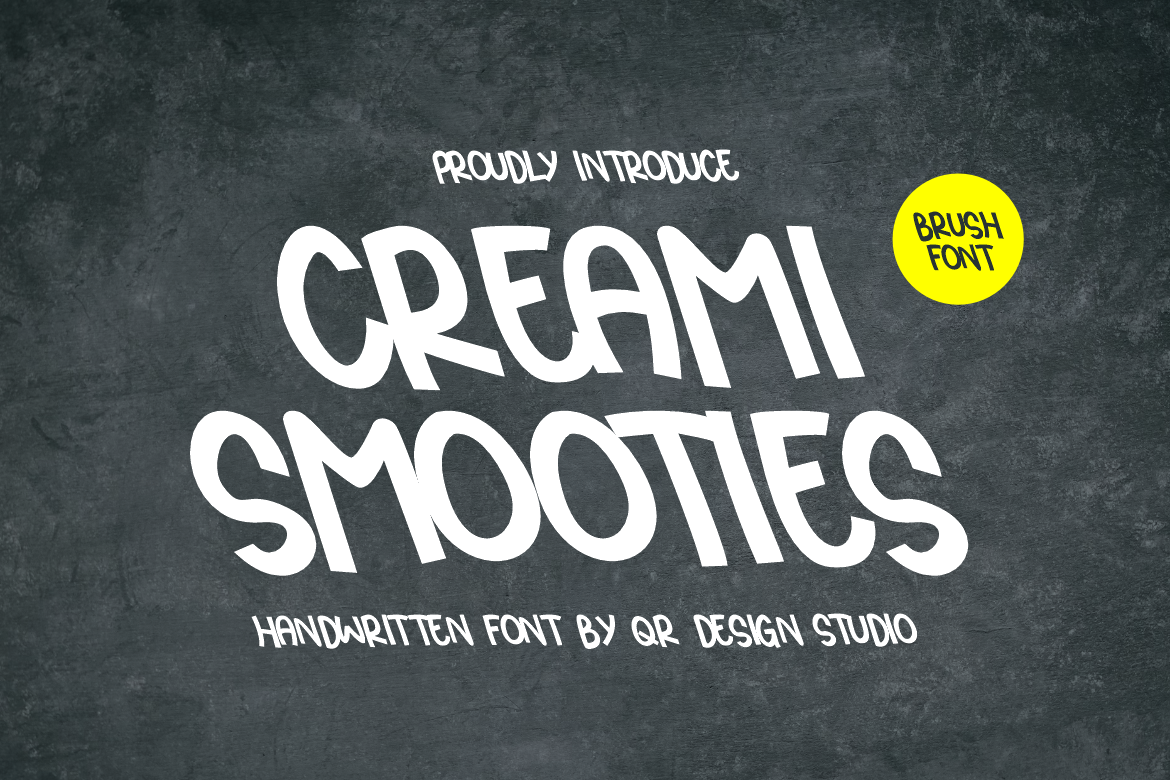
Creami Smooties Font
Creami Smooties Font is a Handwritten and authentic display font. The font is suitable for any branding project like poster, logo, sport, and many more. Outstanding in a wide range of contexts.